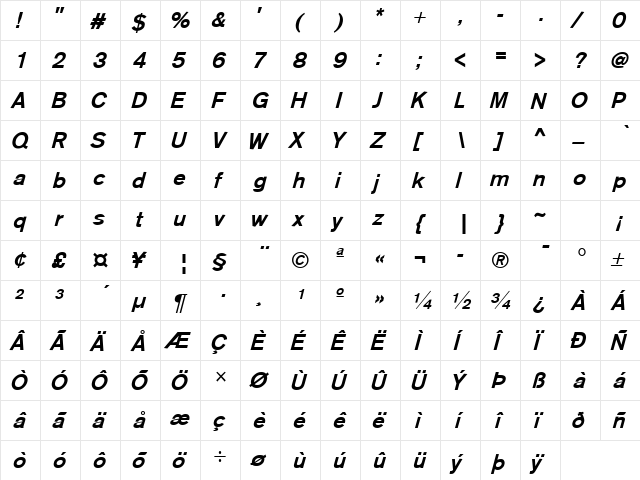
Sage Medium Oblique
Design Context for Sage Medium Typeface
Sage Medium takes a measured approach to typography — its balanced proportions and neutral character make it a reliable workhorse for both digital and print work. Its italic angle brings a sense of urgency and motion to the letterforms.
Pro Tip: Use Sage Medium for emphasis, pull quotes, and subheadings where its slanted energy can add rhythm to the layout.